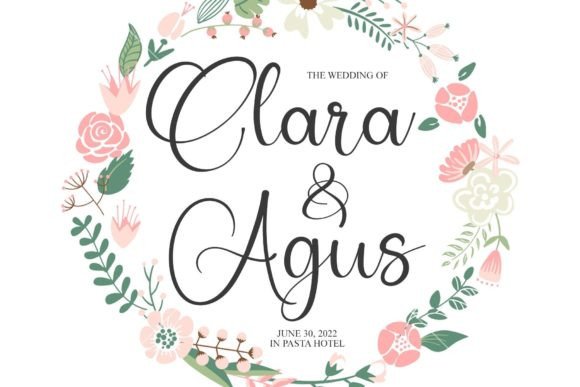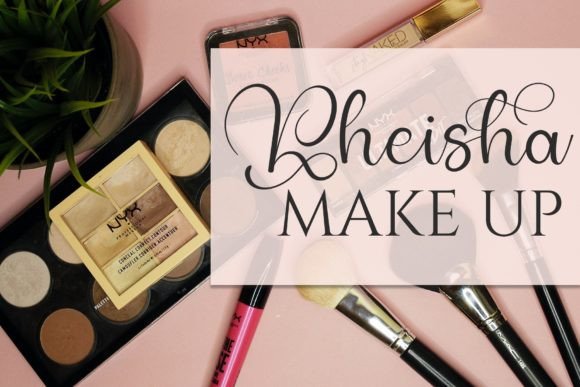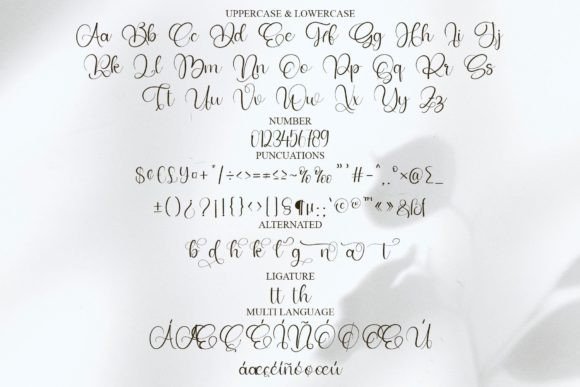
The Eviden Font: A Delicate and Elegant Handwritten Masterpiece
I’ll never forget the moment I stumbled upon the Eviden font. I was working on a project for a client who wanted a elegant and sophisticated look, but I was struggling to find the right font. That’s when I discovered Eviden, and it instantly caught my attention. Its delicate and elegant handwritten style was exactly what I needed to bring my design to life.
The Eviden font is a masterpiece, with distinct and well-balanced letters that make it incredibly versatile. Whether you’re a designer, crafter, or creative hobbyist, you’ll fall in love with its unique style and be eager to use it to create spectacular designs.
An Honest Review of Eviden Font
What I Love About Eviden Font
- ✨ Delicate and elegant handwritten style
- ✅ Well-balanced letters for easy reading
- 💫 Incredibly versatile for various design projects
- 🎨 Perfect for creating elegant and sophisticated designs
While Eviden font is amazing, there are a few things to keep in mind:
- 🤔 Some letters may appear too delicate for certain design projects
- ⚠️ Limited availability of stylistic alternates
The Story Behind Eviden Font
Eviden font was designed with the intention of creating a elegant and sophisticated handwritten font. The designer wanted to create a font that would be perfect for designs that require a touch of elegance and refinement. With its delicate and well-balanced letters, Eviden font is sure to become a favorite among designers and crafters.
Q: What is Eviden font?
A: Eviden font is a delicate and elegant handwritten font with a unique and versatile style.
Q: Is Eviden font suitable for body text?
A: While Eviden font is beautiful, it may not be the best choice for body text due to its delicate nature. However, it can be used for headings and titles.